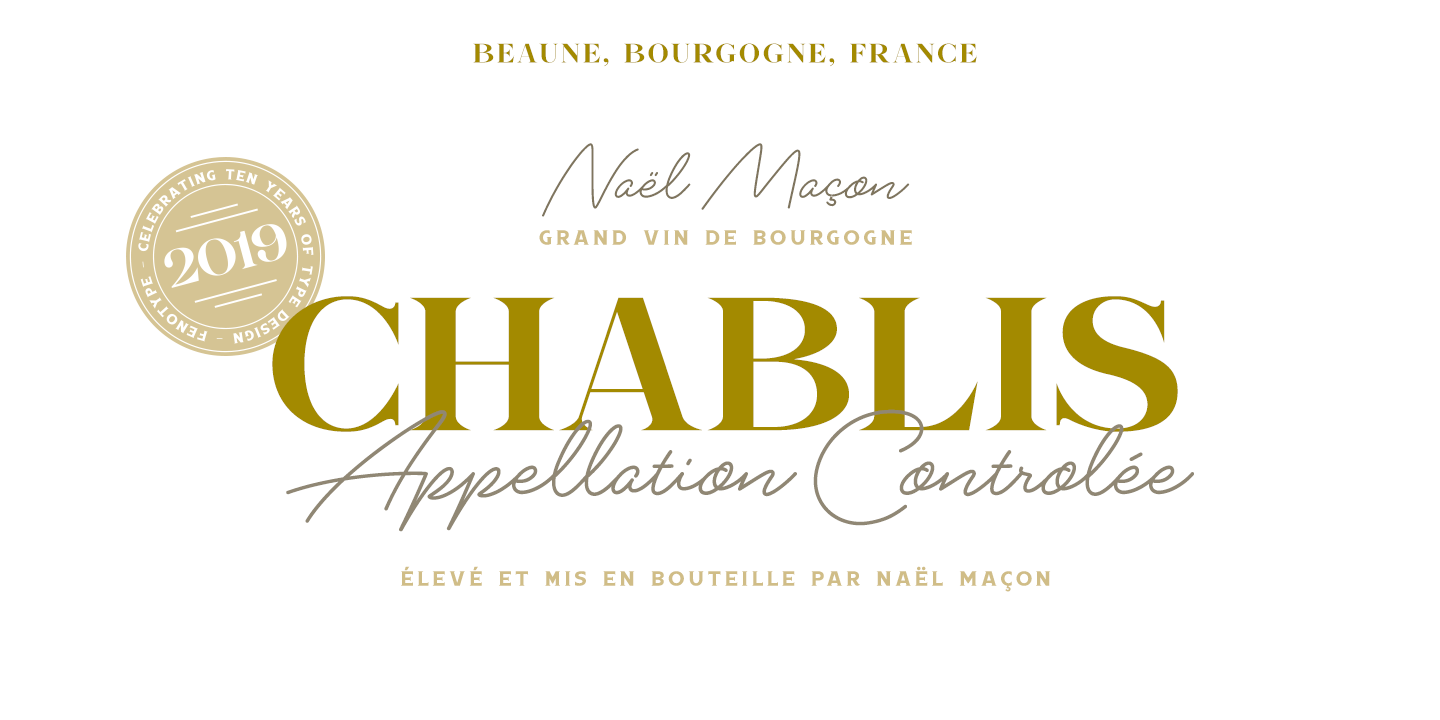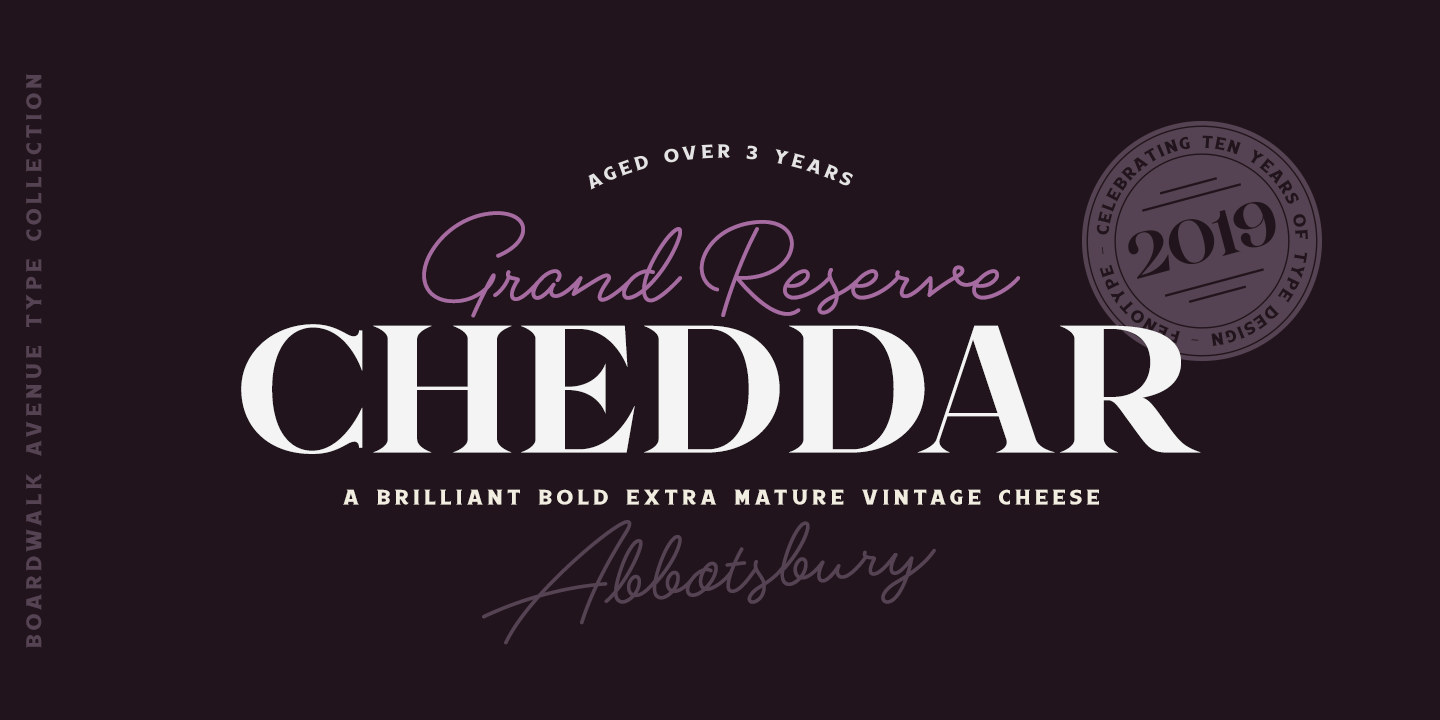
About Boardwalk Avenue Pen
Boardwalk Avenue Pen is a connected Script. It\’s great for headlines, quotes or in packaging. It has a casual hand drawn vibe to it but it\’s clean and legible. It\’s equipped with automatic Contextual Alternates that keep the connections smooth and versatile.…